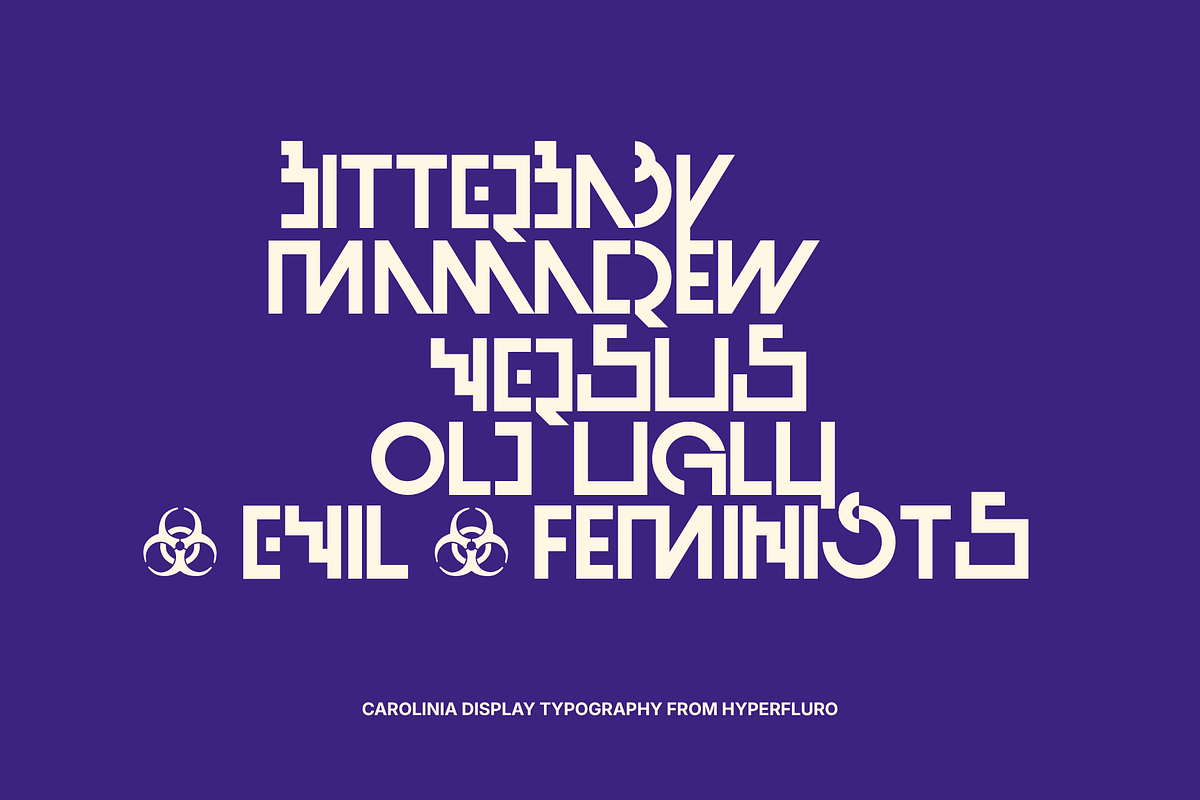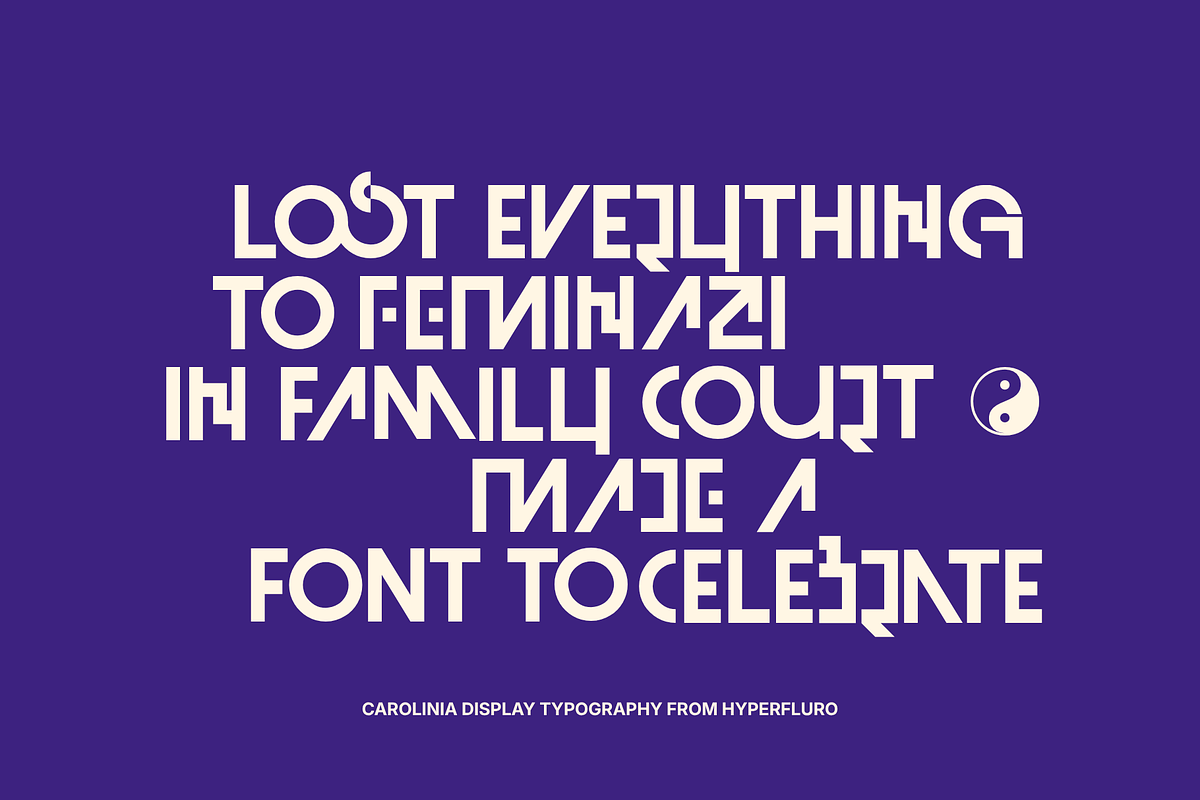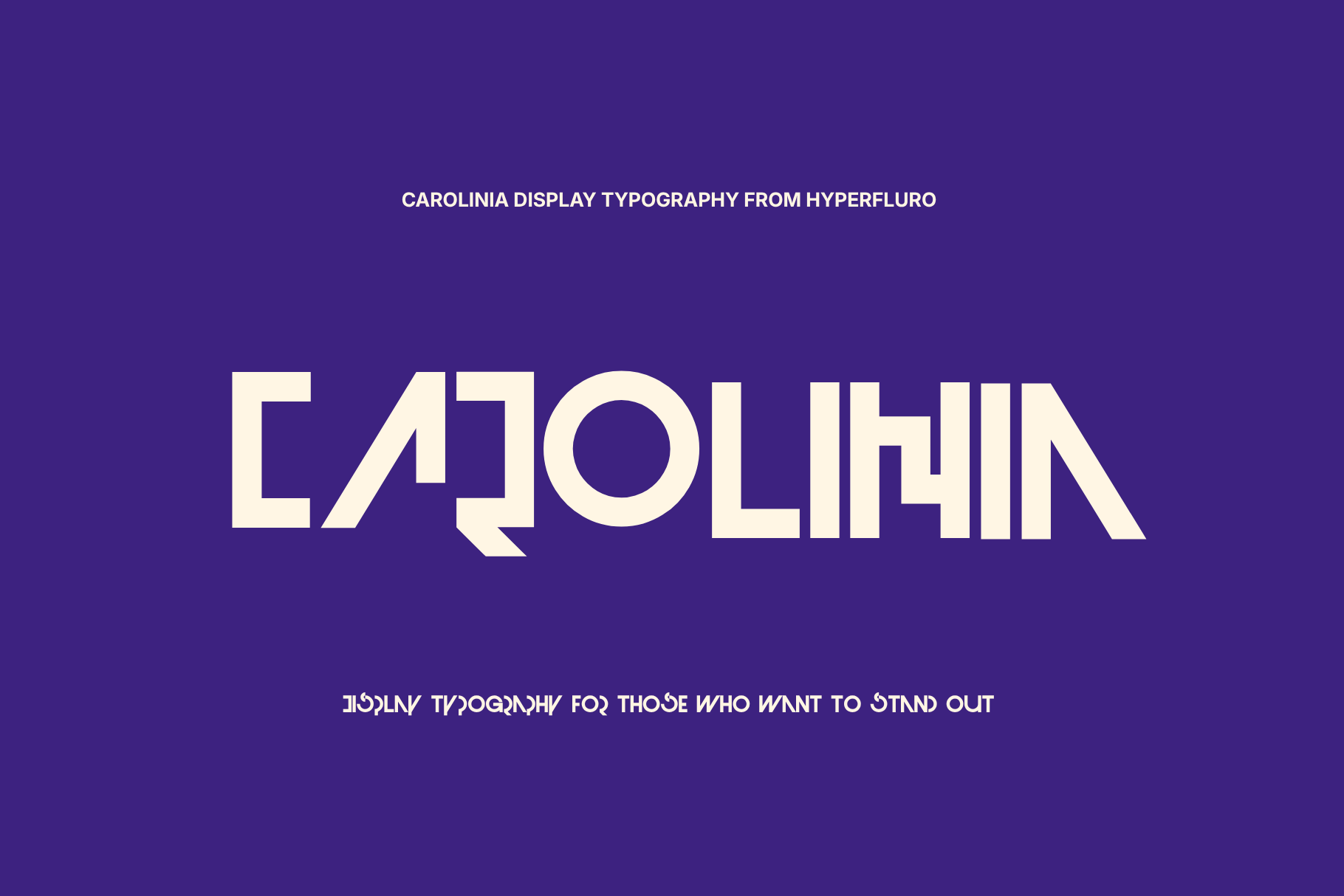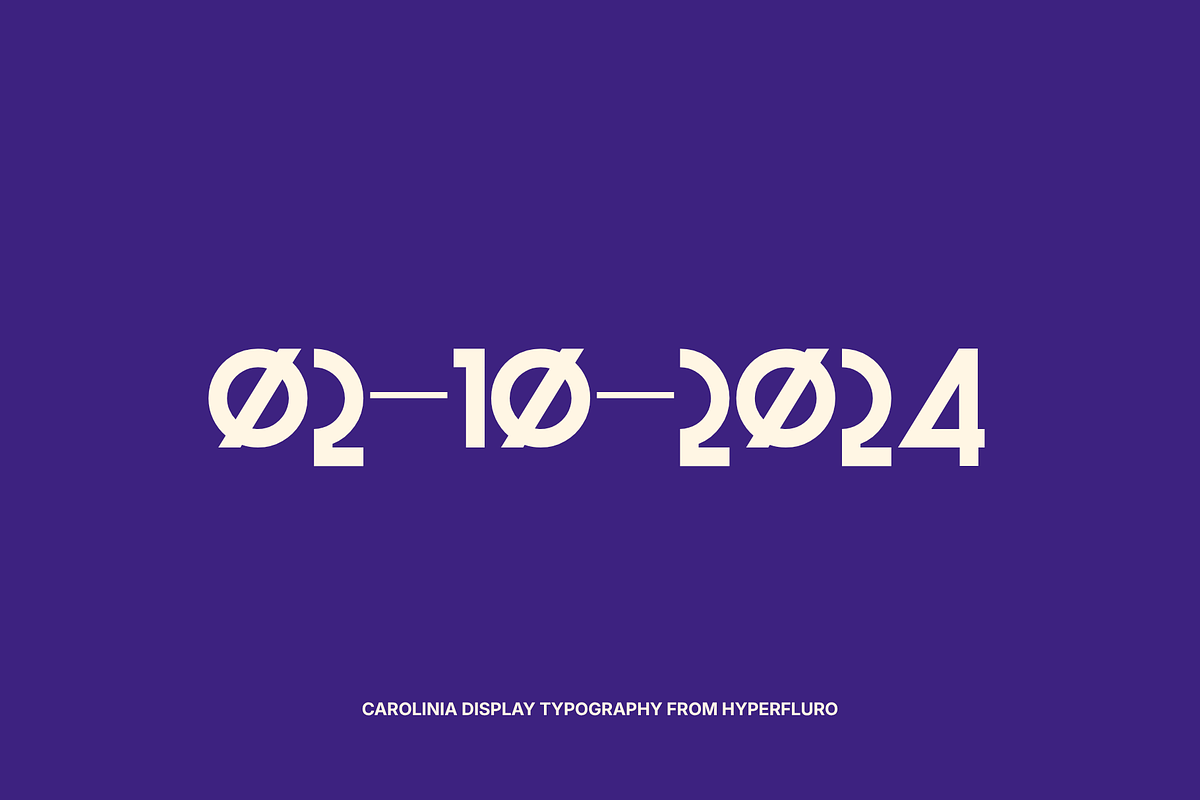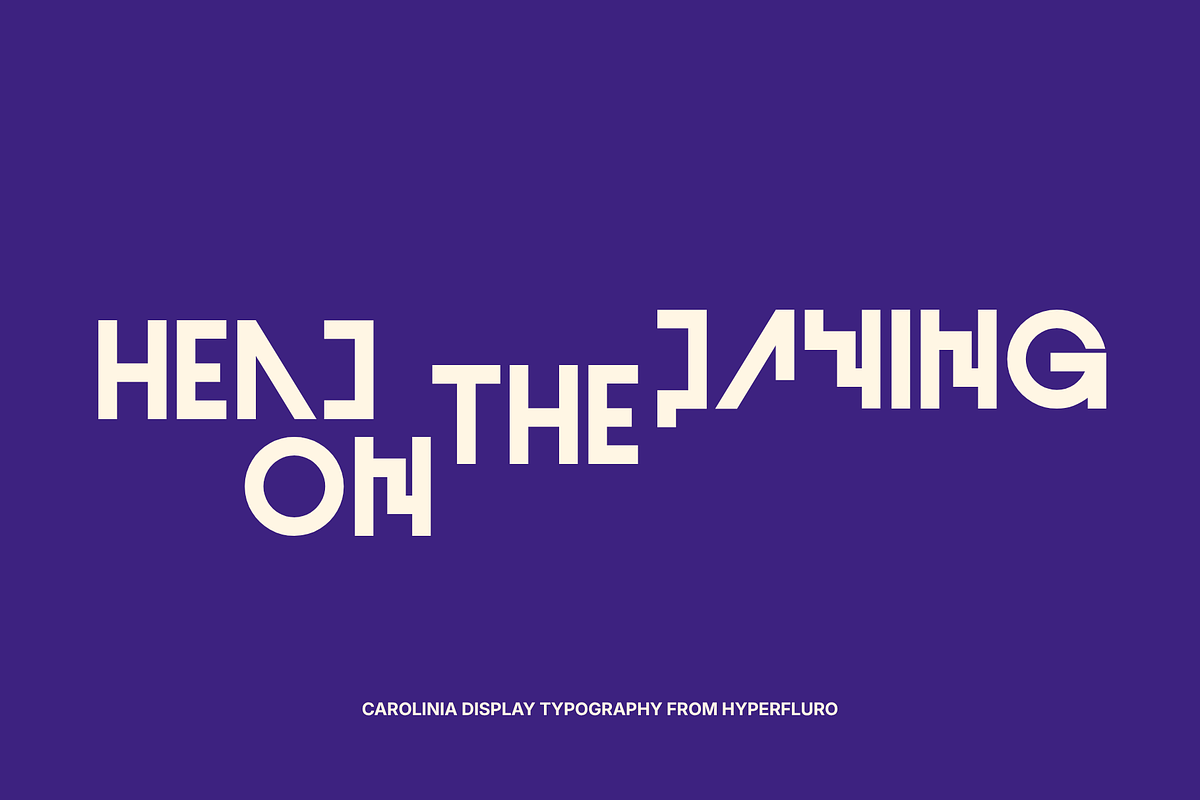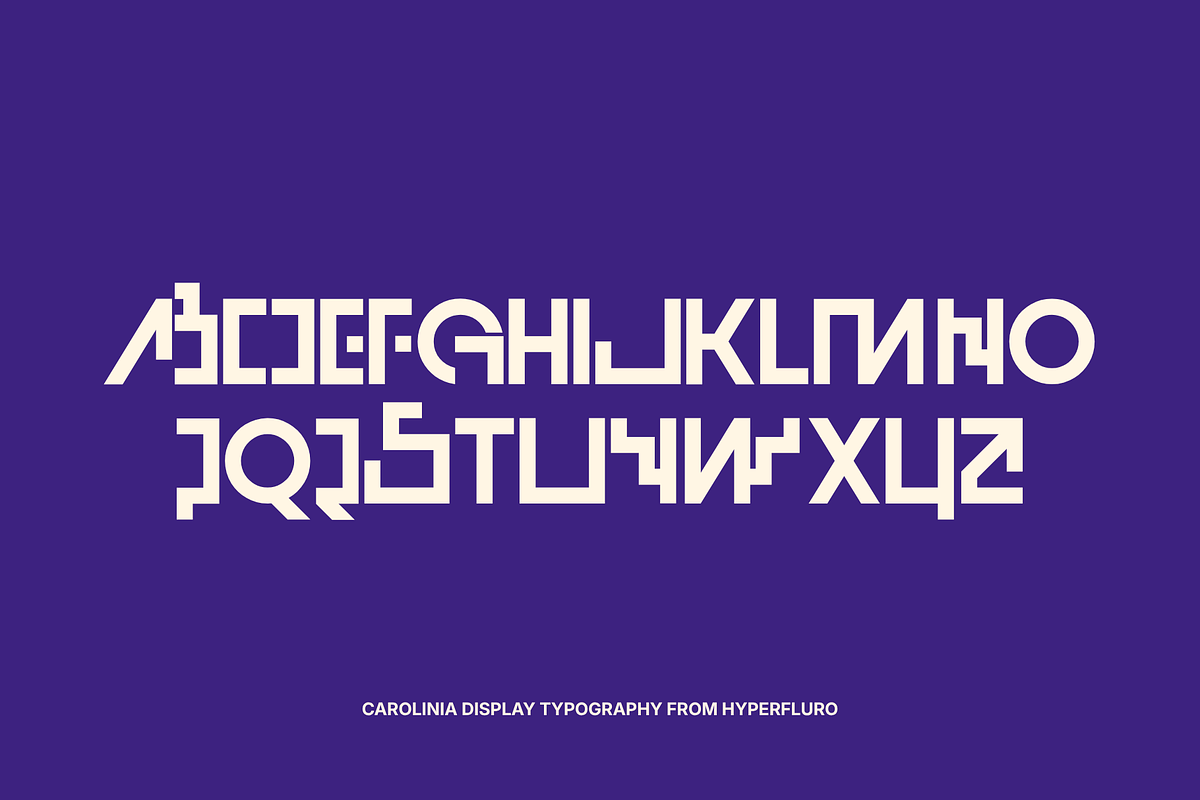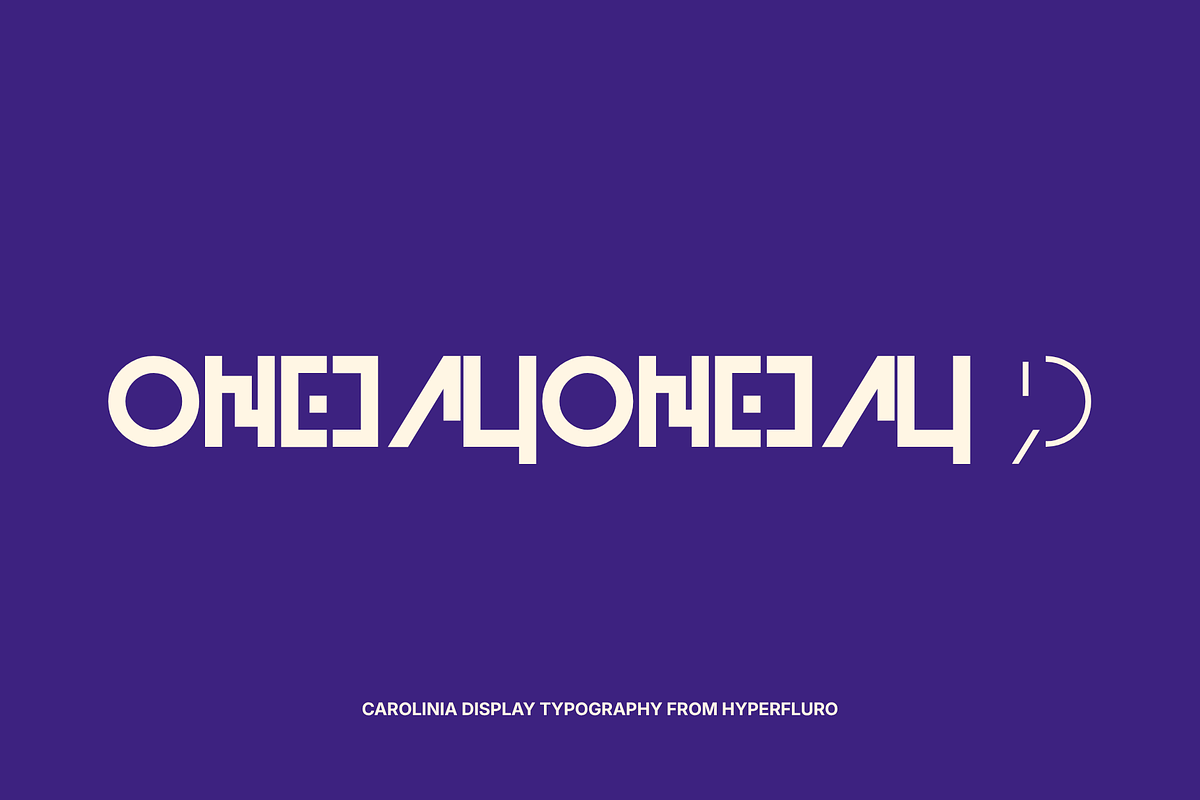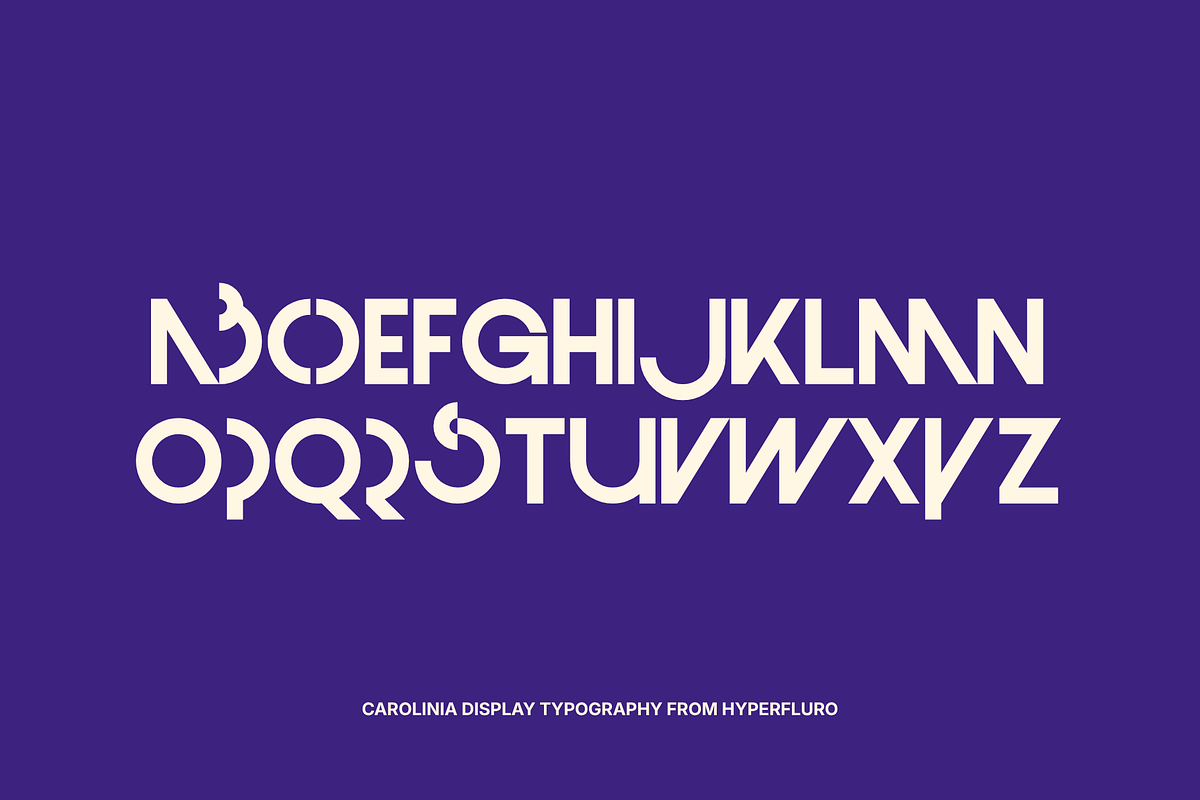
CAROLINIA MODERN BRANDING FONT 2026
Carolinia is a super modern, original sans serif display typeface designed for the visual language of 2026 and beyond. Built with precision and clarity, it delivers a clean, minimal aesthetic while maintaining a distinctive edge that stands out across digital and print environments. Its balanced proportions, sharp geometry, and refined spacing make it highly versatile—equally suited for high-impact headlines, luxury branding, editorial layouts, logos, and cutting-edge web design.
Carolinia is crafted for creators who want more than just simplicity—it offers a contemporary identity that feels both futuristic and timeless. Whether used in fashion campaigns, creative direction, UI design, or social content, it holds presence without overpowering the message. Designed to perform across multiple platforms and resolutions, Carolinia ensures consistency, readability, and visual impact in every application.
A typeface built for modern brands, forward-thinking designers, and elevated creative work.